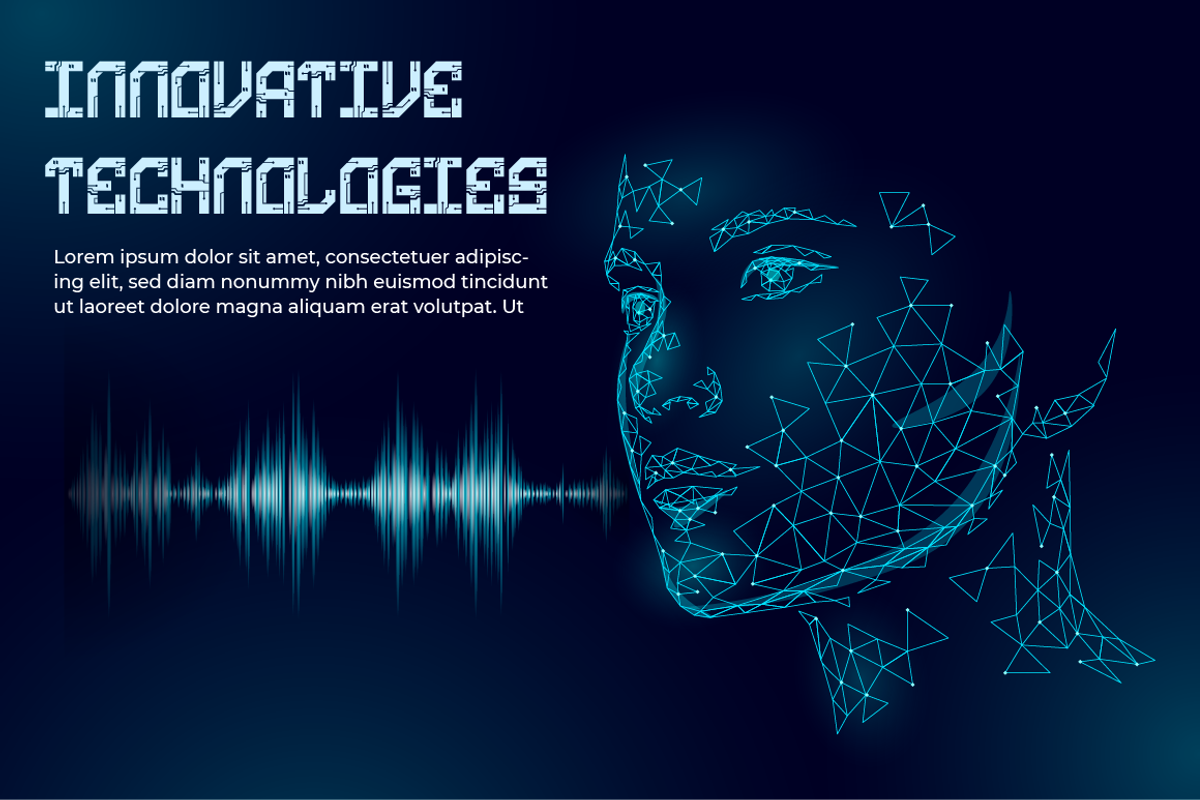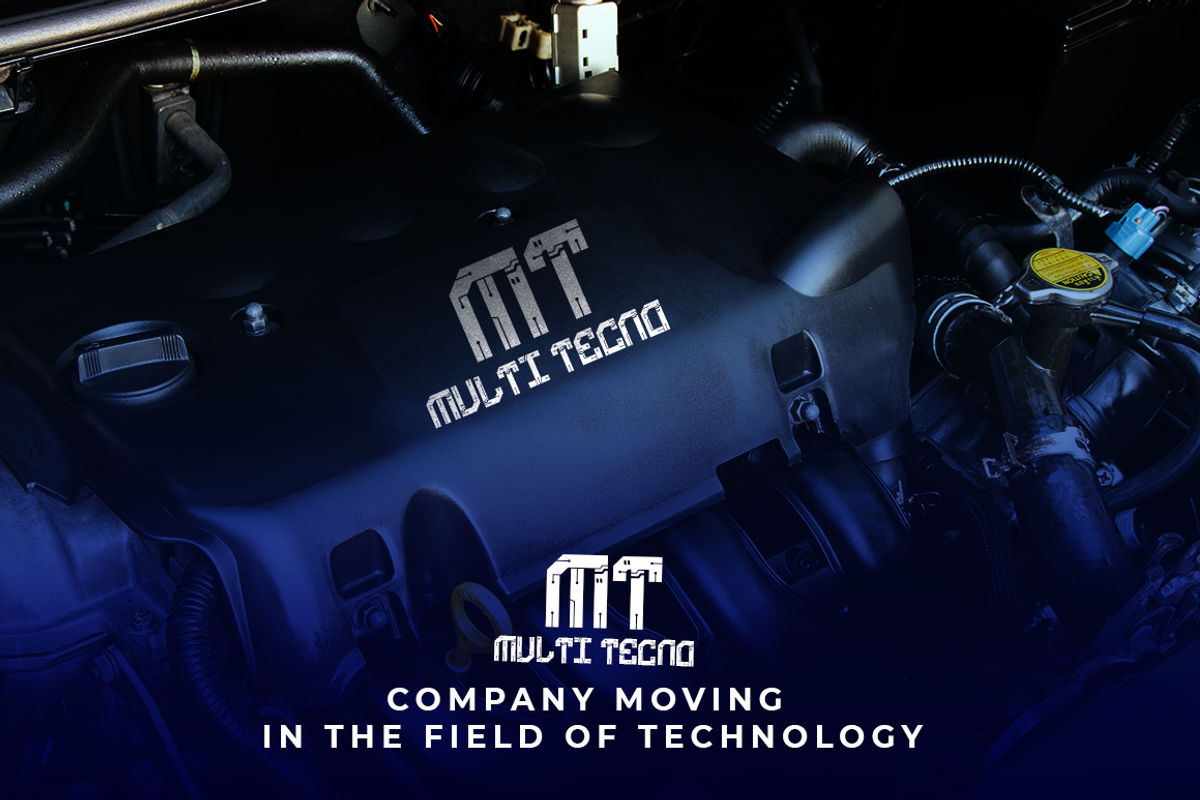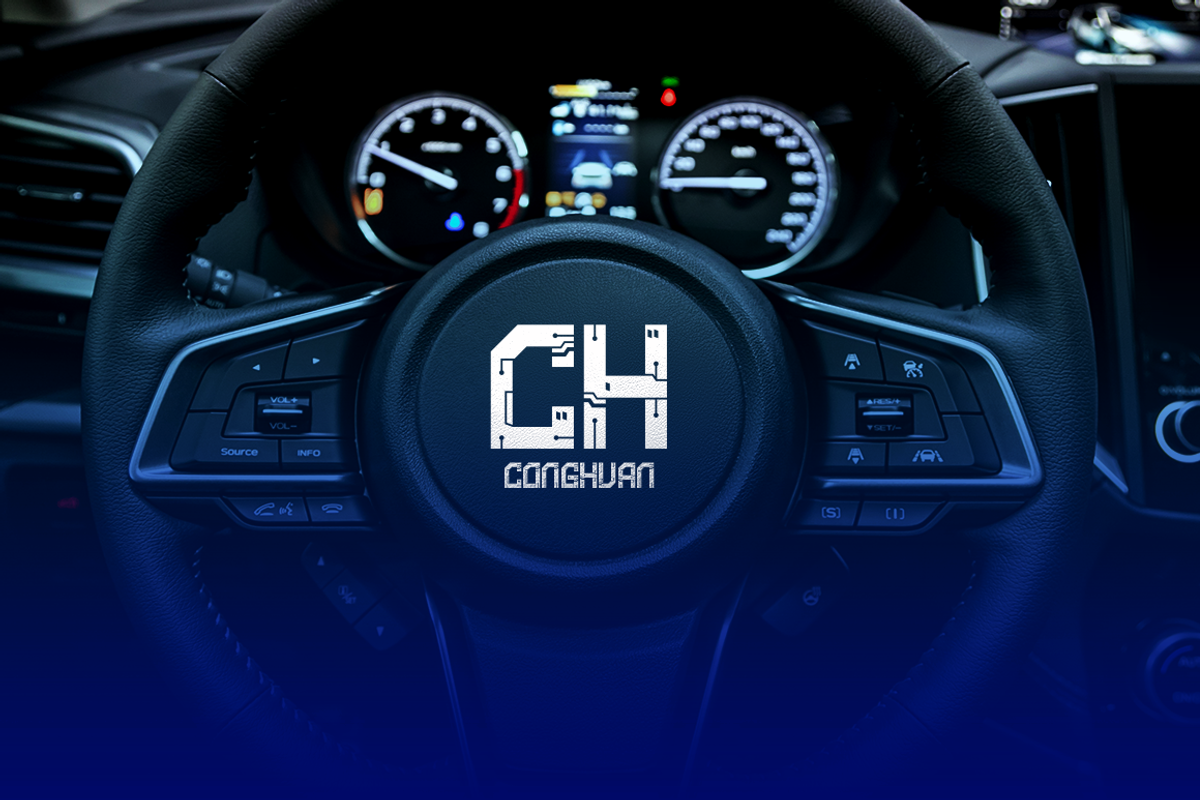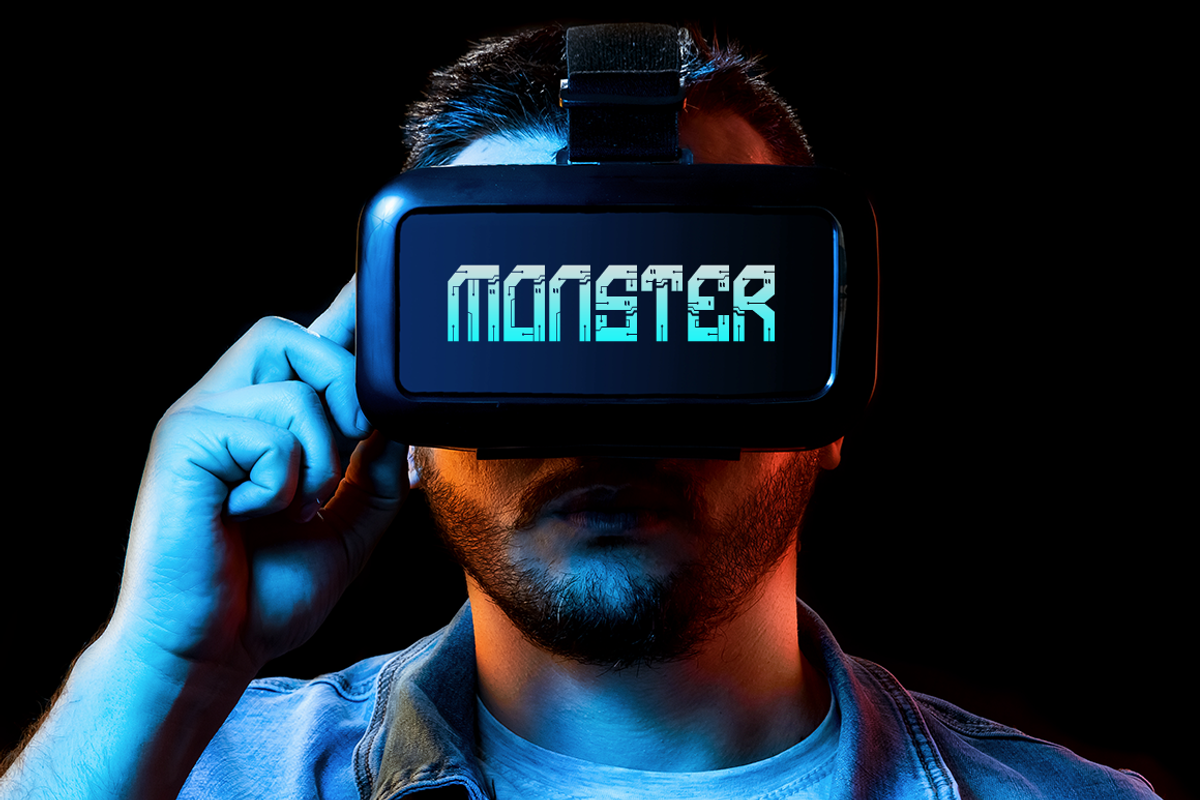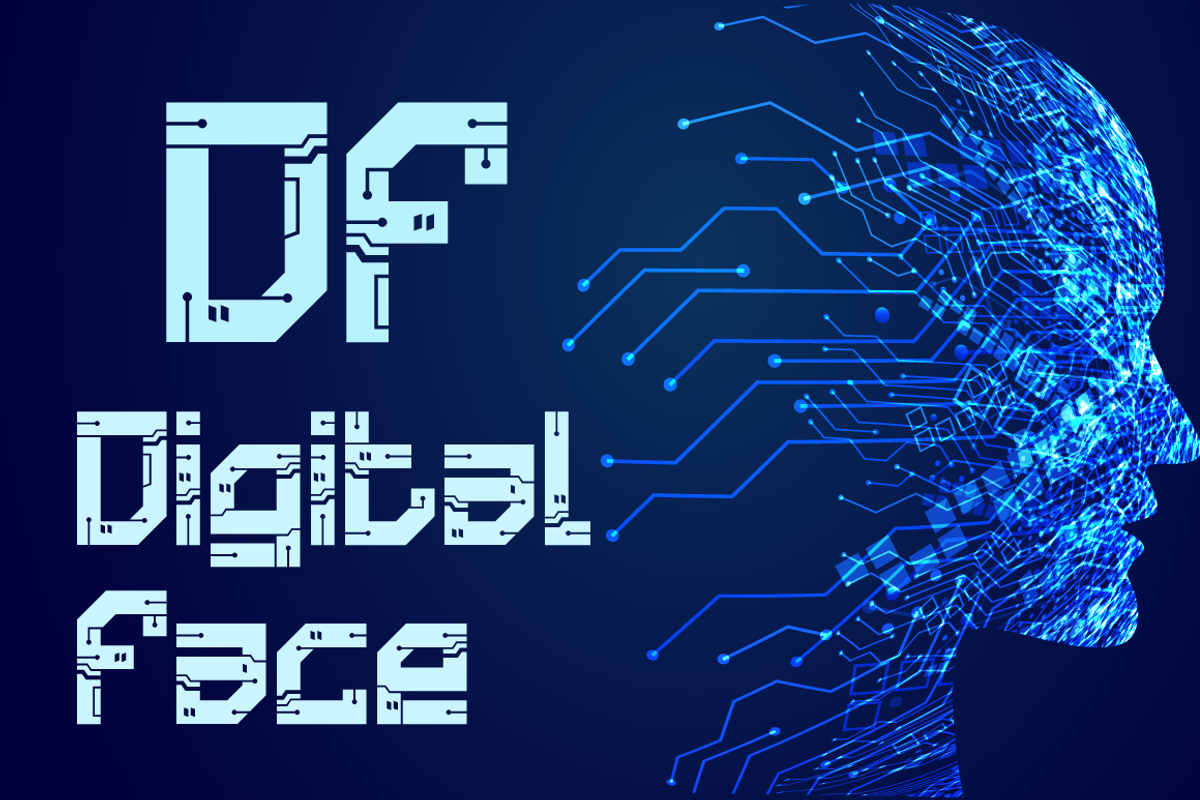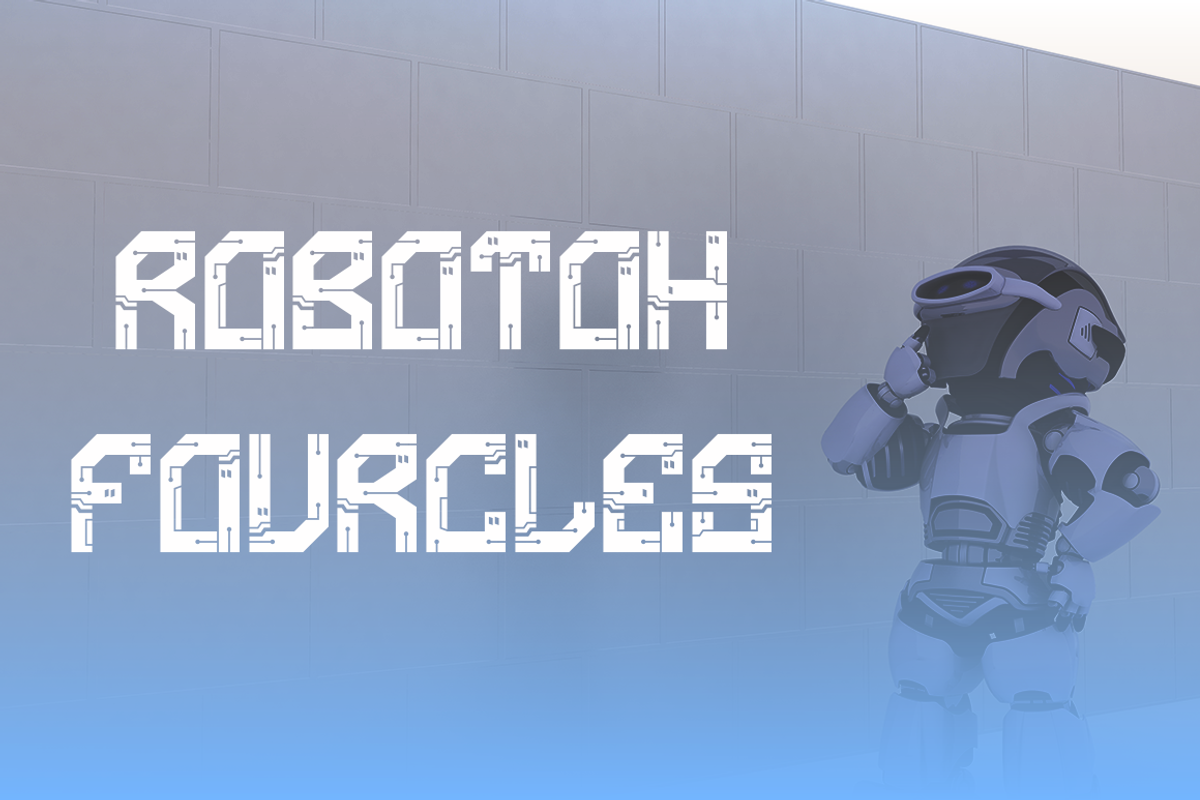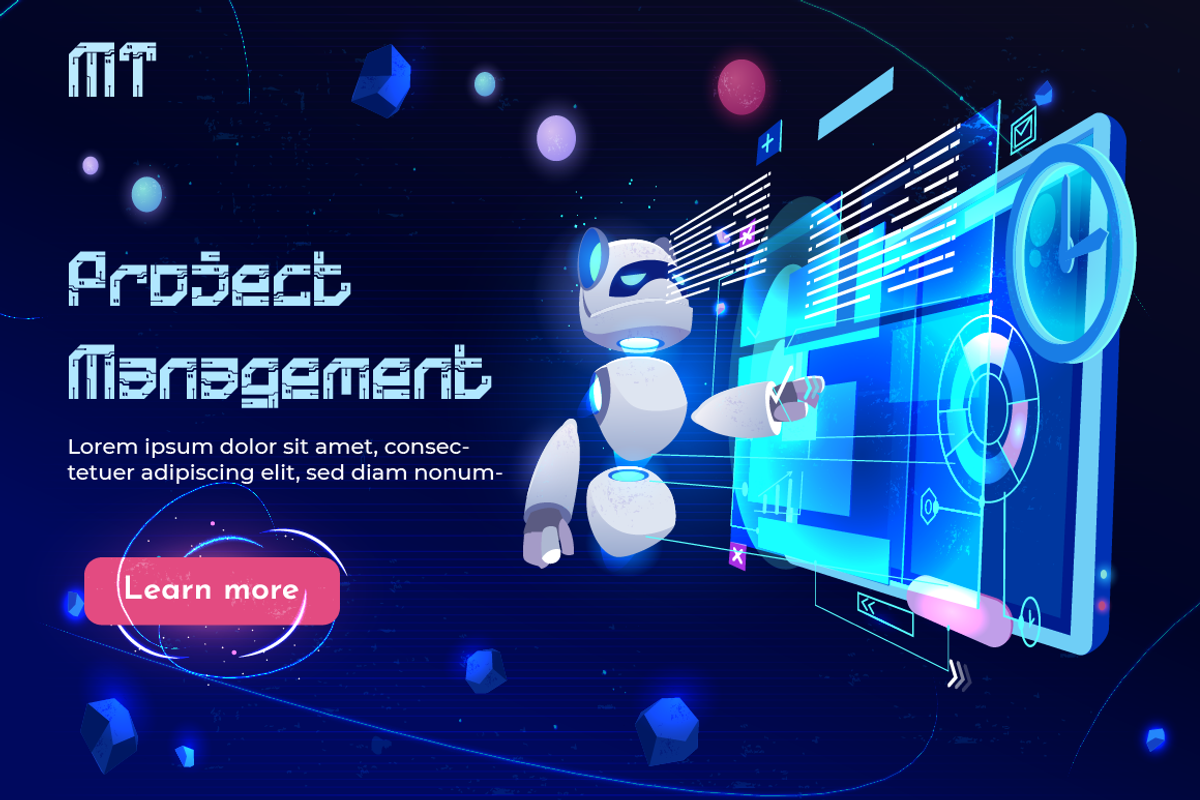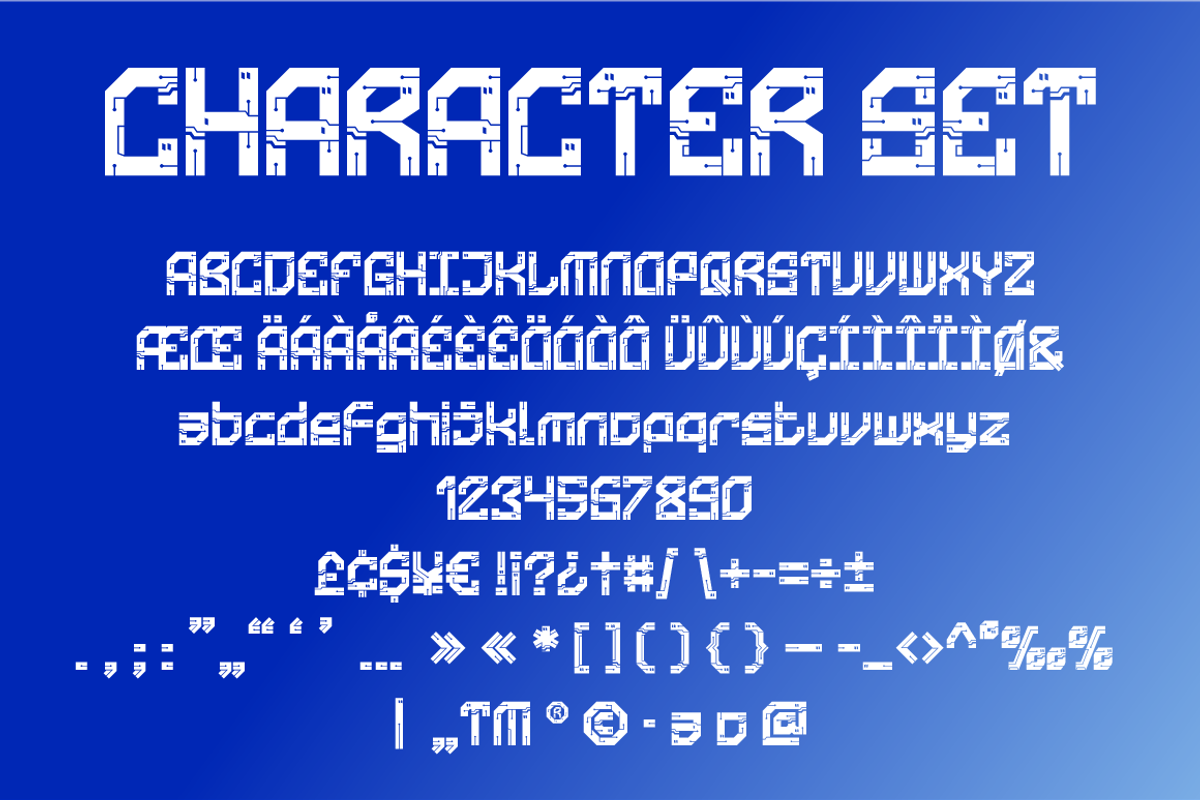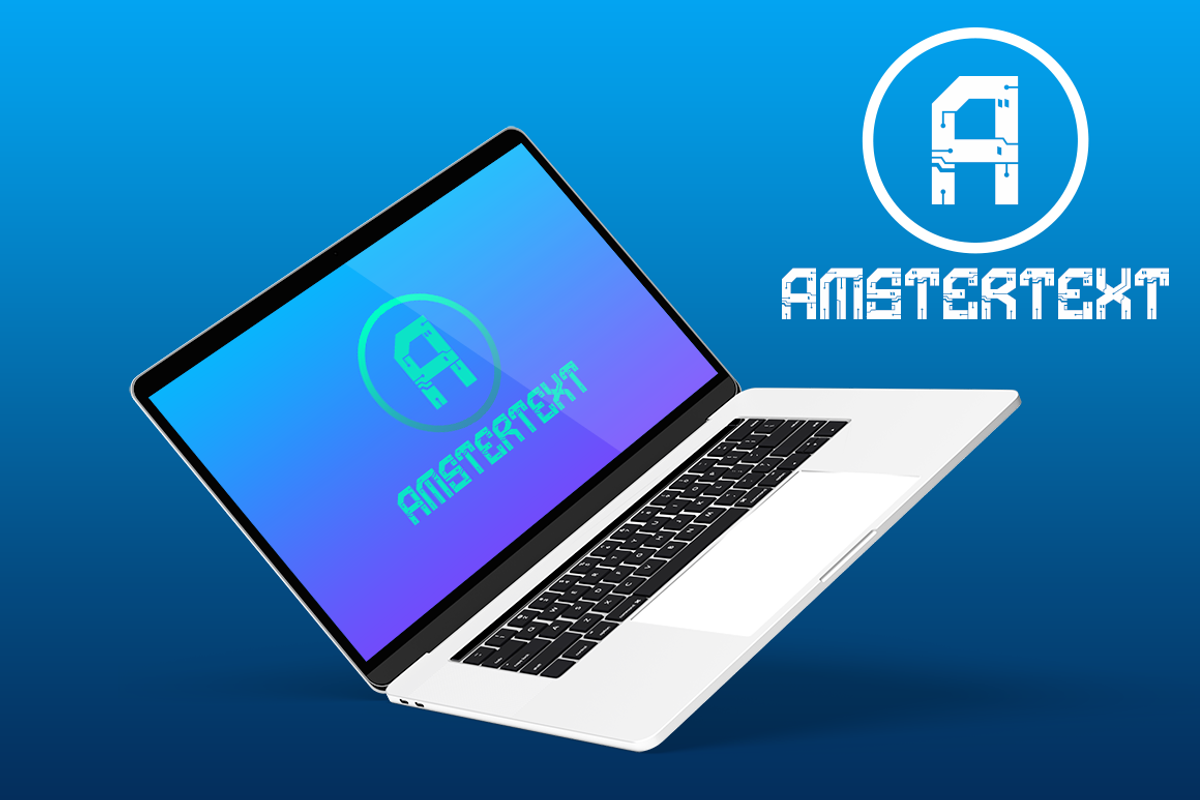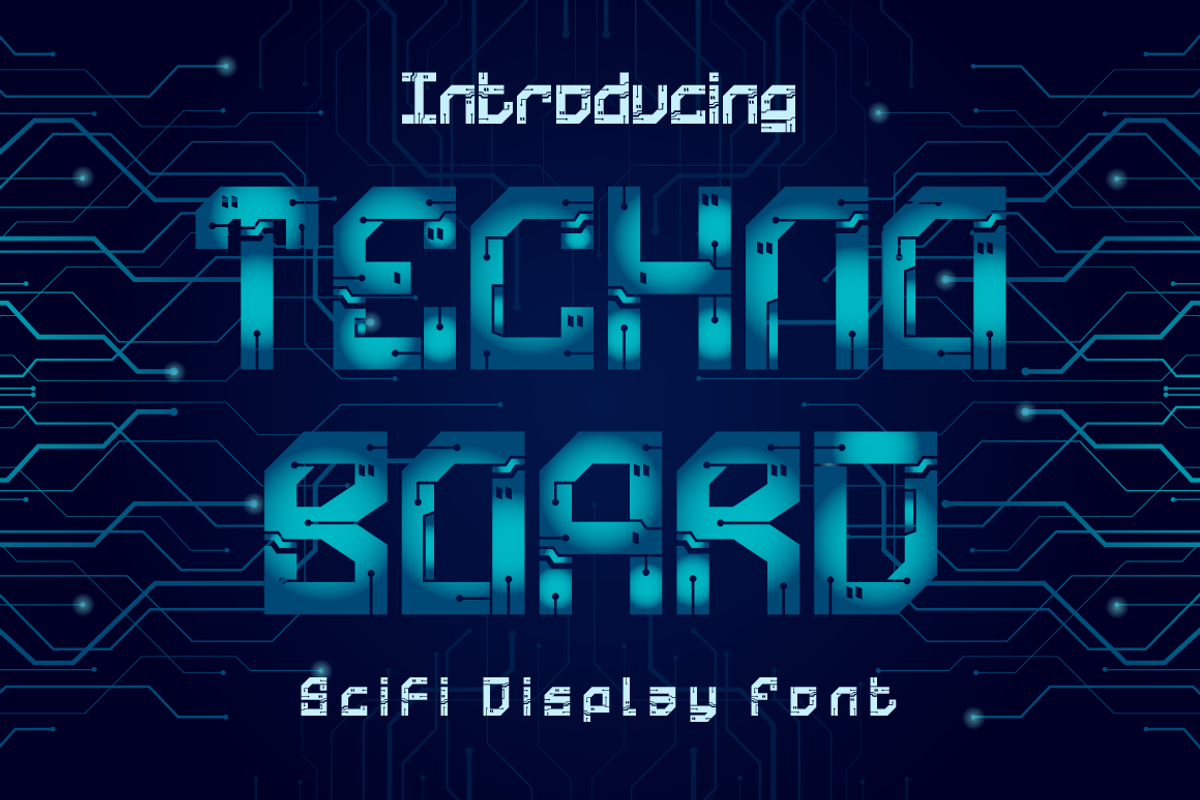
Technoboard - Circuit Board Font
Technoboard
Introducing Technoboard - A Scifi Futuristic Display Font. This font is inspired by techno circuit boards, combined with the scifi font type. Technoboard is great for any kind of display purpose from logos, Tshirt, apparel, product packaging, tittle header, poster, merchandise, social media, labels, branding.